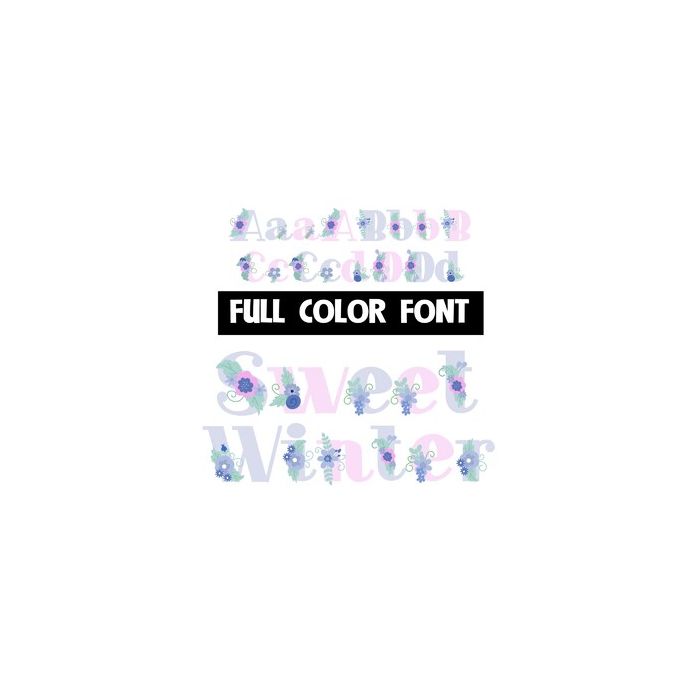
This full-color font features winter flowers. There is an alt case with alternative color choices that you can access thru your system's character map.